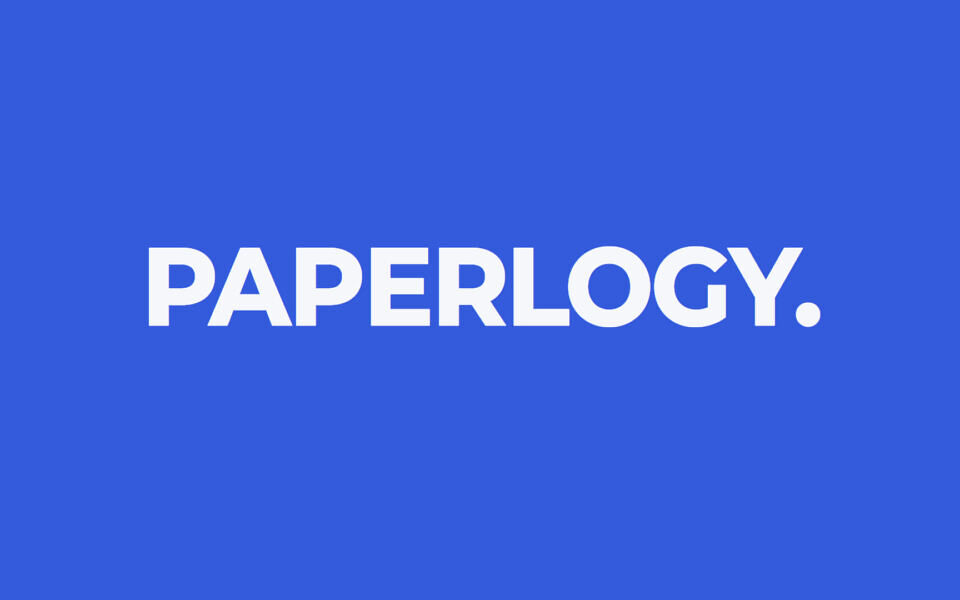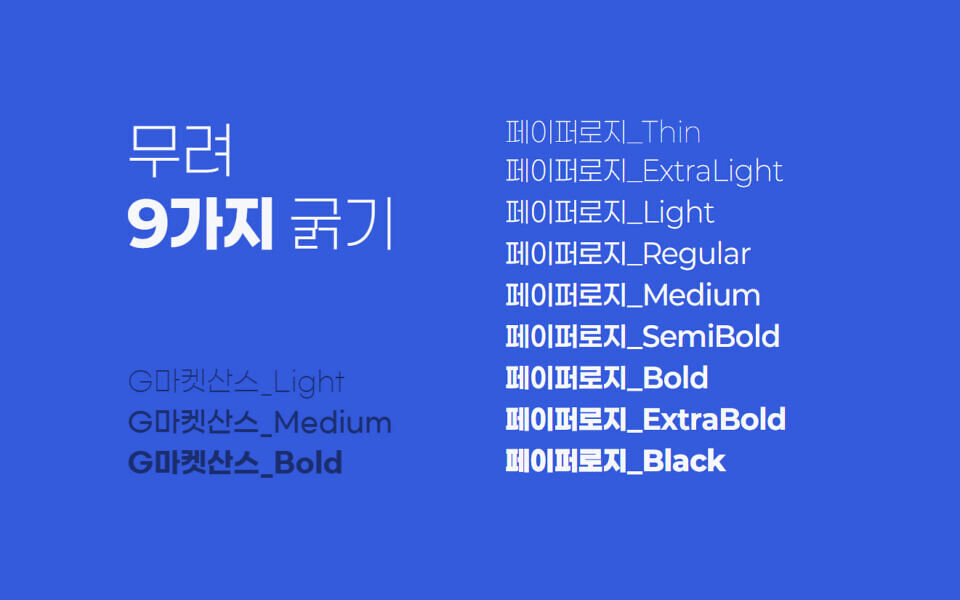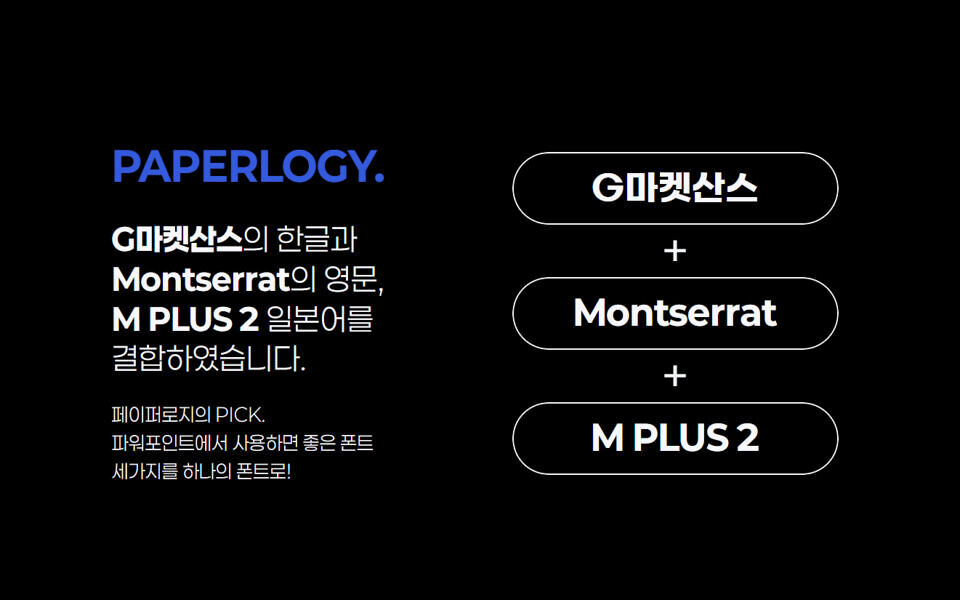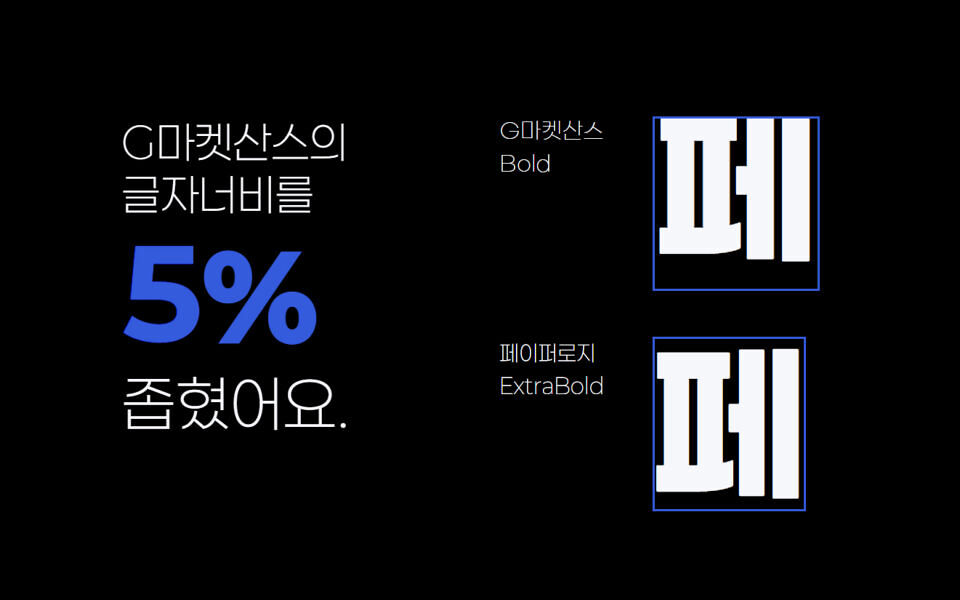
Paperlogy Font blends Gmarket Sans for Korean, Montserrat for Latin, and M PLUS2 for Japanese, creating a versatile, geometric sans-serif font. Designed for PowerPoint, it offers nine weights for titles and body text, ensuring readability and style.